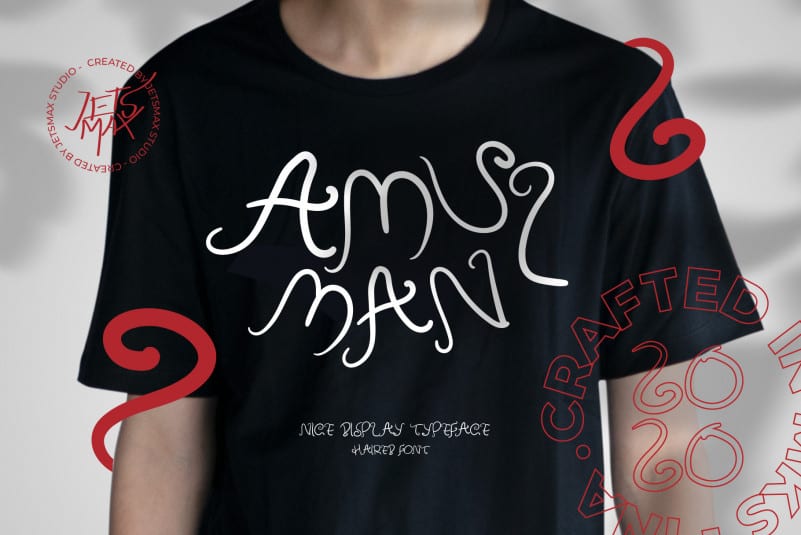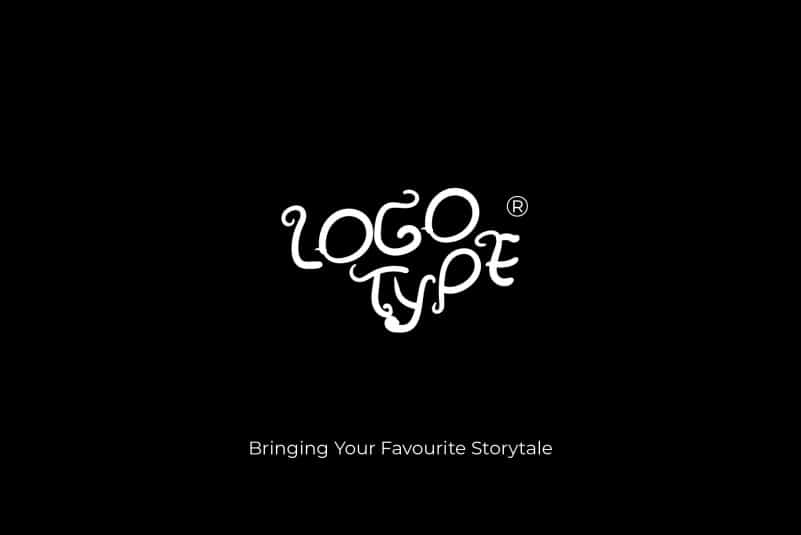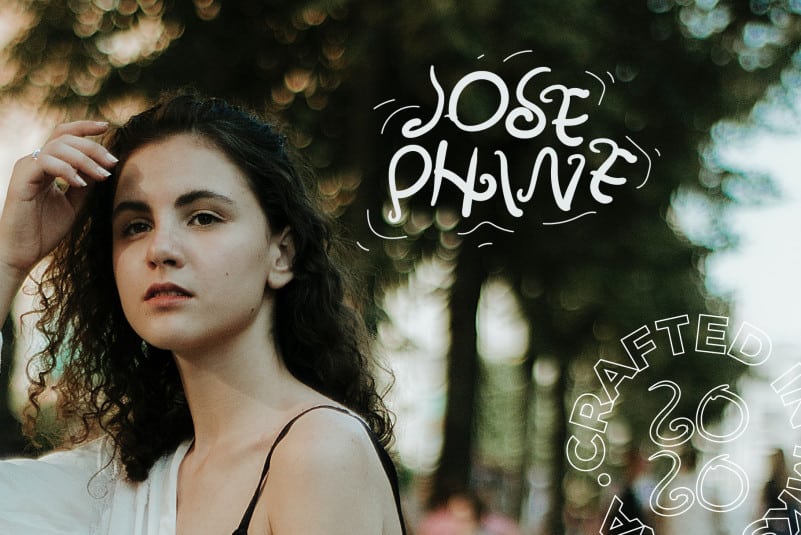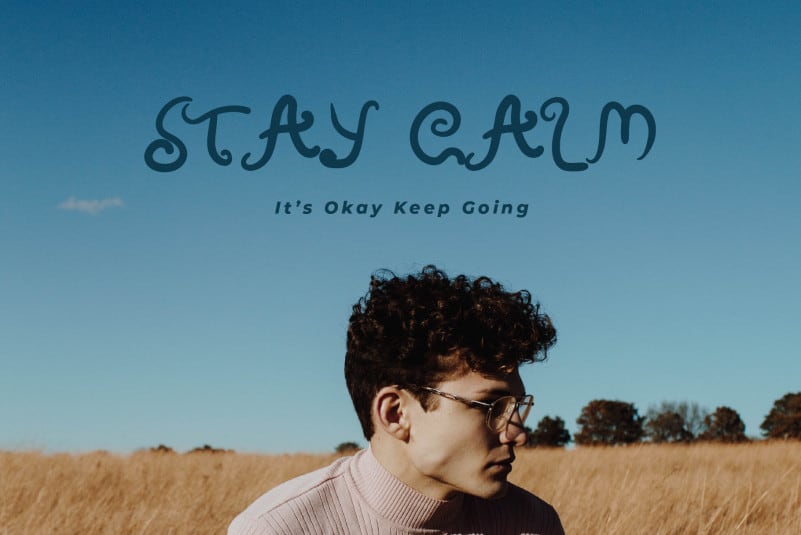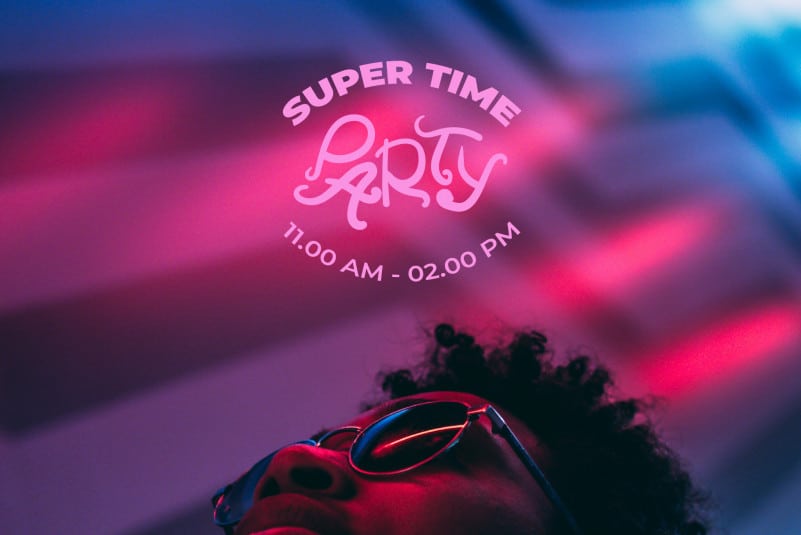
Amulman Modern Curly Font
Amulman Modern Curly Font is a curly font whose use is very suitable for your design projects, both formal and informal. This font is also suitable for branding, wedding, logotype and event designs
Amulman Modern Curly Font gives a gorgeous feel to a variety of branding projects, logos, wedding designs, social media posts, advertisements, and so much more. Let your imagination run free!